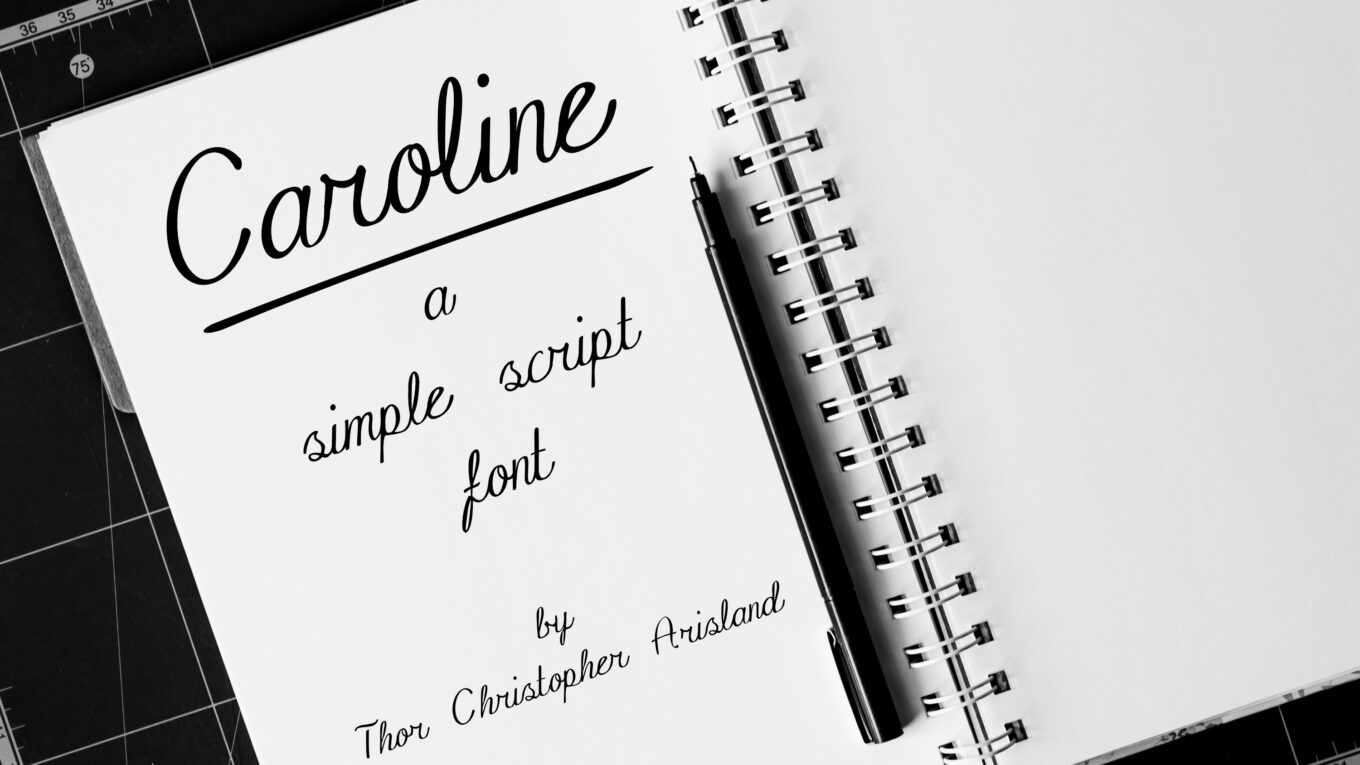
Discover the Elegance of Caroline Font: A Clean and Simple Script Font
Are you a designer or crafter looking for a font that exudes elegance and sophistication? Look no further than Caroline Font, a clean and simple script font that is perfect for a variety of creative projects. In this article, we’ll take a closer look at the Caroline Font, its unique features, and how you can use it to elevate your designs.
What is Caroline Font?
Caroline Font is a beautiful script font that was created based on the author’s cursive handwriting. The font has been carefully traced and digitally cleaned up to ensure that it is crisp and clear. The result is a font that has a clean and simple look, making it perfect for a variety of applications.
Unique Features of Caroline Font
One of the standout features of Caroline Font is its partially geometrically letters. This gives the font a unique and modern look that sets it apart from other script fonts. The clean lines and simple shapes of the letters make it easy to read and understand, making it perfect for use in body text or headings.
Another feature that makes Caroline Font special is its elegant and sophisticated feel. The font has a refined and luxurious look that makes it perfect for use in high-end designs, such as branding, packaging, and advertising.
Uses for Caroline Font
Caroline Font is a versatile font that can be used in a variety of creative projects. Here are a few ideas to get you started:
- Branding and Logo Design: Use Caroline Font to create a sophisticated and elegant logo for your business or brand.
- Stationery and Invitations: Add a touch of luxury to your stationery and invitations with Caroline Font.
- Packaging Design: Use Caroline Font to create eye-catching and elegant packaging for your products.
- Web Design: Add a touch of sophistication to your website with Caroline Font, perfect for use in headings and body text.
Tips for Using Caroline Font
Here are a few tips to keep in mind when using Caroline Font in your designs:
- Pair it with a sans-serif font: Caroline Font looks great when paired with a sans-serif font, such as Arial or Helvetica. This creates a nice contrast between the elegant script font and the clean sans-serif font.
- Use it in moderation: While Caroline Font is elegant and sophisticated, it can be overwhelming if used too much. Use it sparingly in your designs to create a sense of luxury and refinement.
- Experiment with colors: Caroline Font looks great in a variety of colors, from bold and bright to soft and pastel. Experiment with different colors to find the one that works best for your design.
Caroline Font is a beautiful and elegant script font that is perfect for designers and crafters looking to add a touch of sophistication to their designs. With its clean and simple look, partially geometrically letters, and elegant feel, Caroline Font is a versatile font that can be used in a variety of creative projects. Whether you’re creating a logo, packaging, or website, Caroline Font is a great choice.